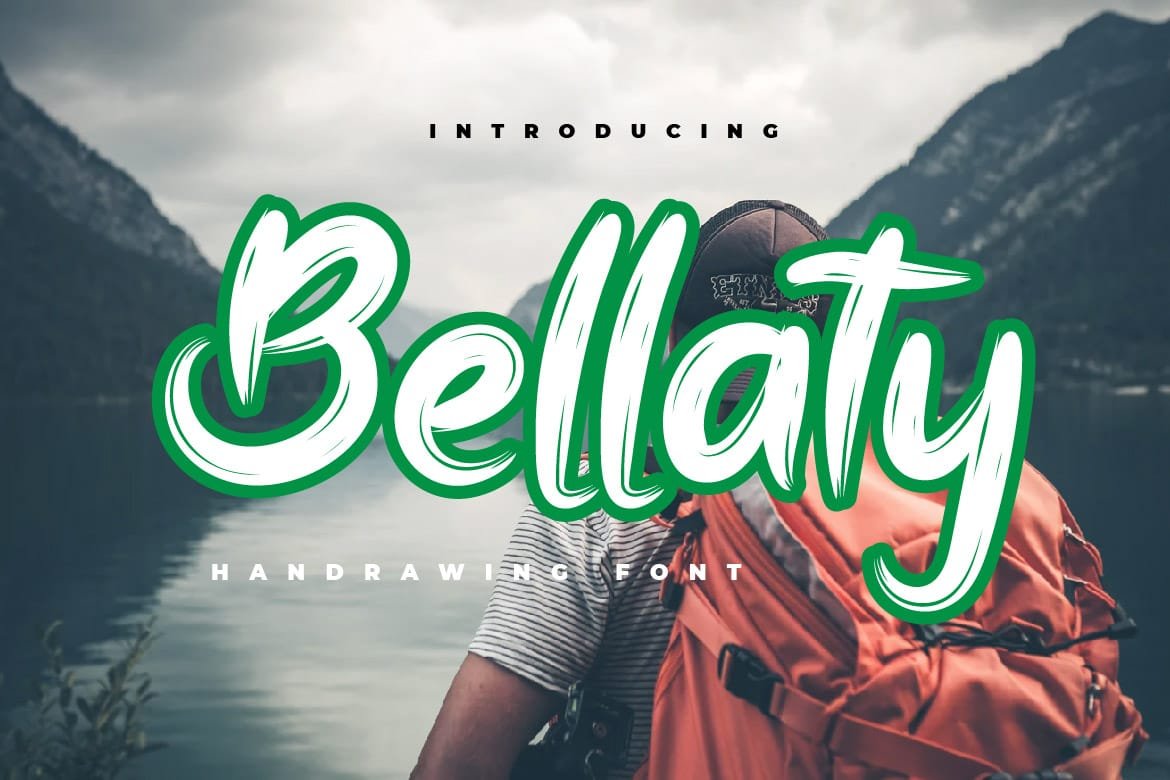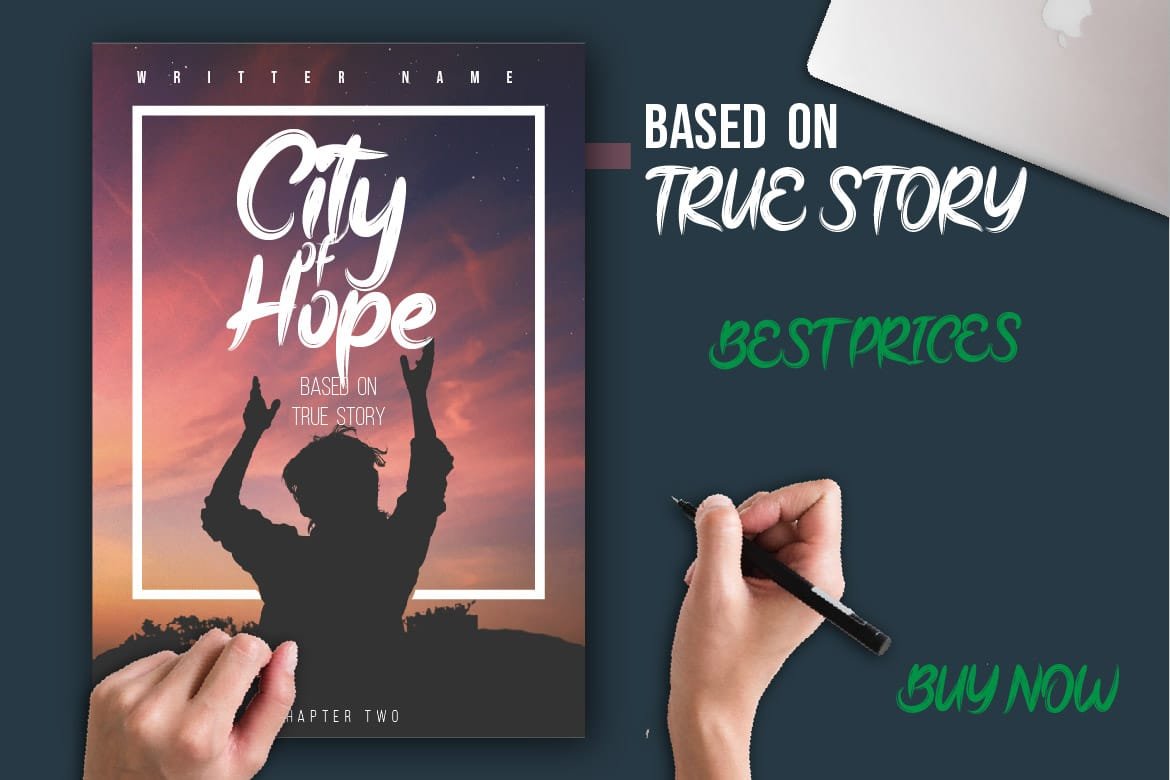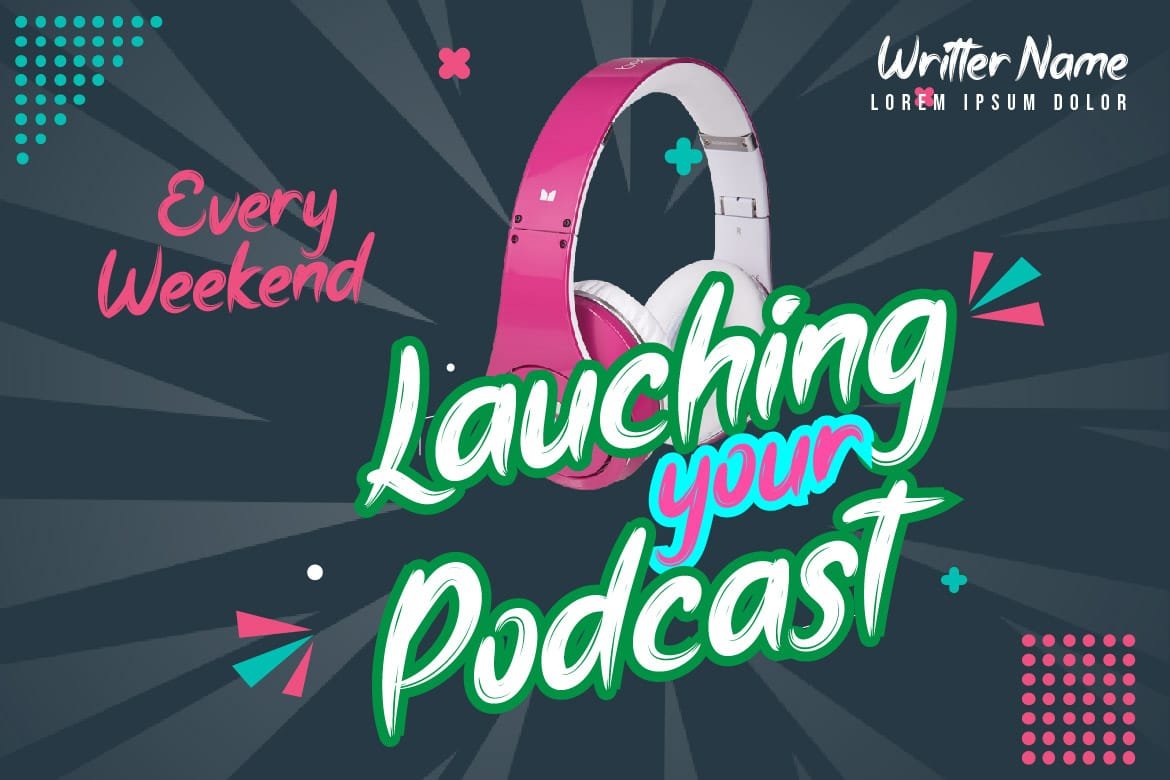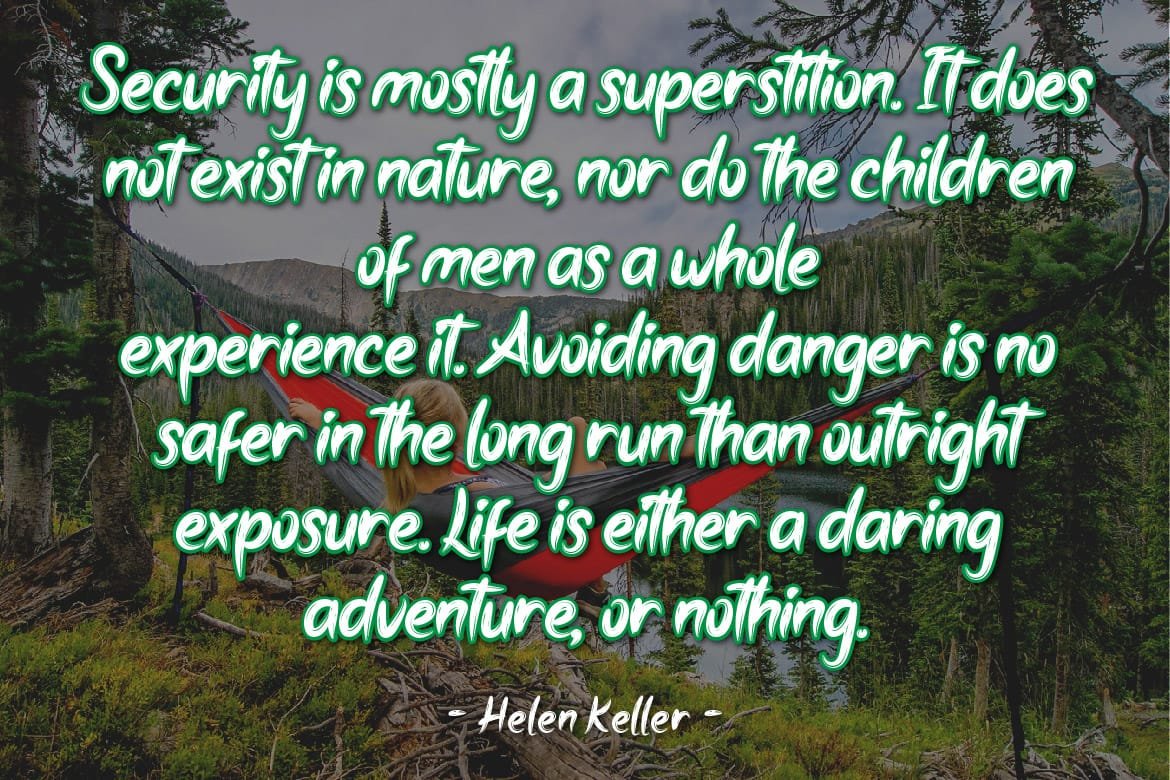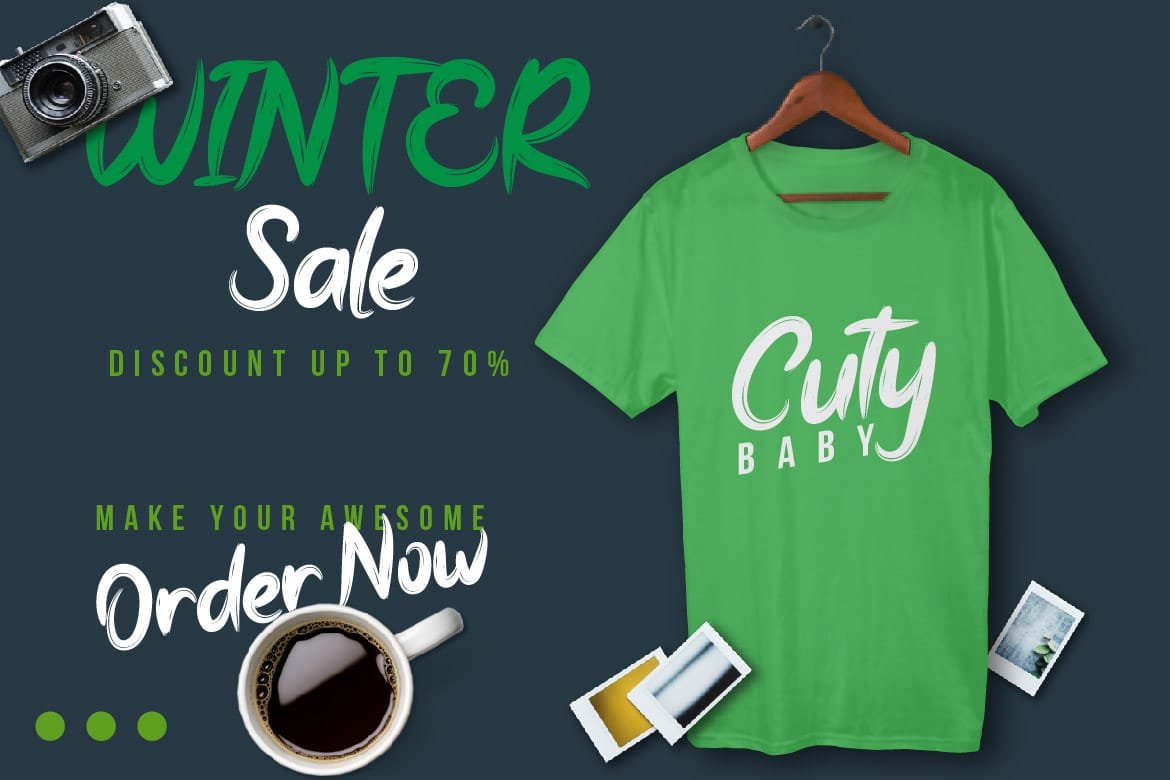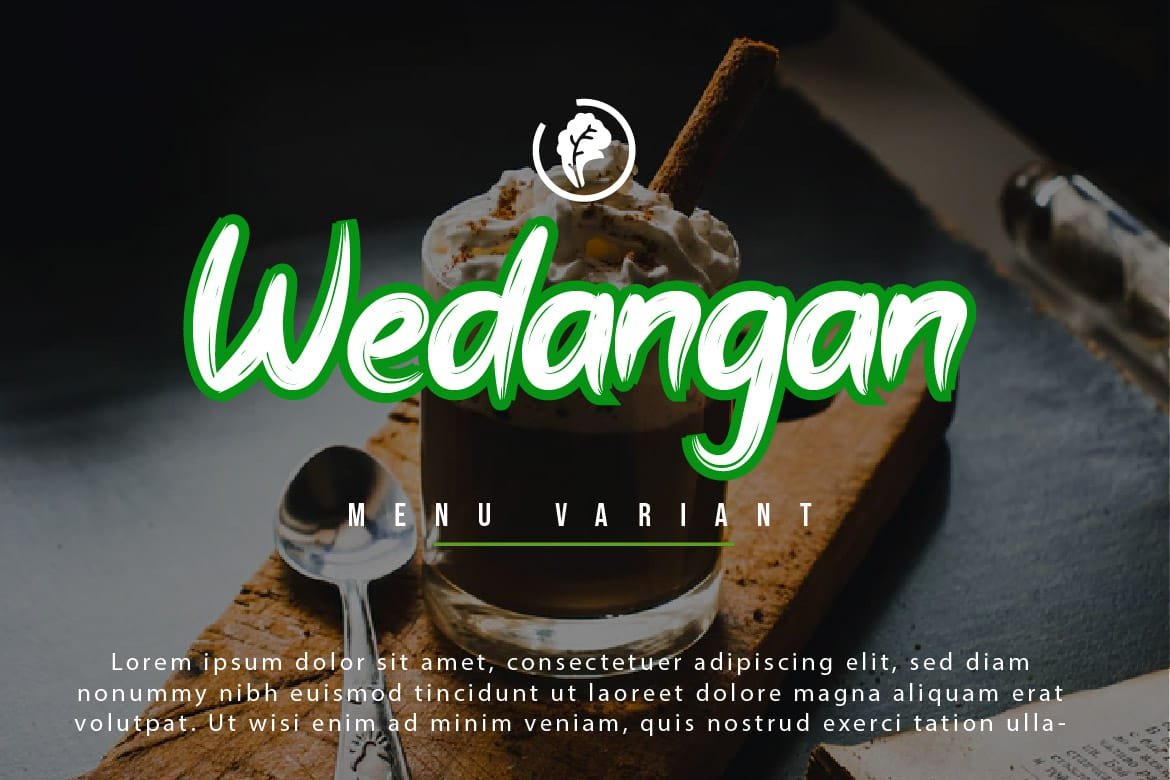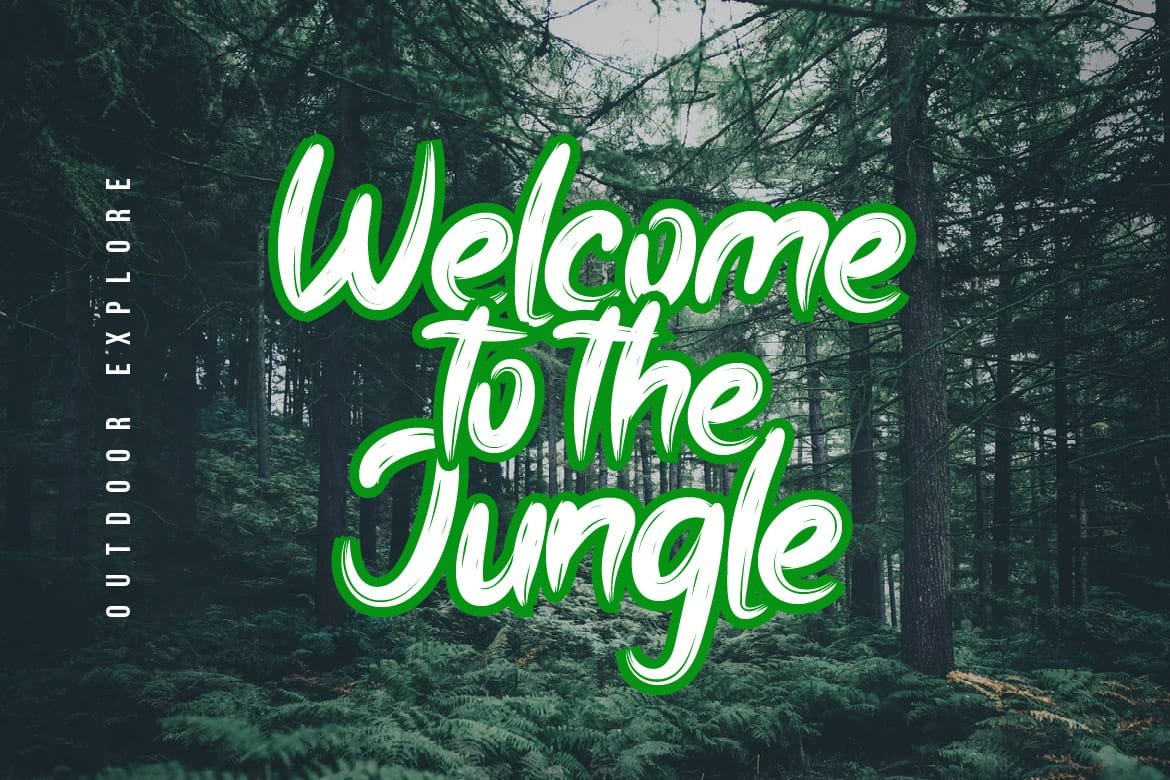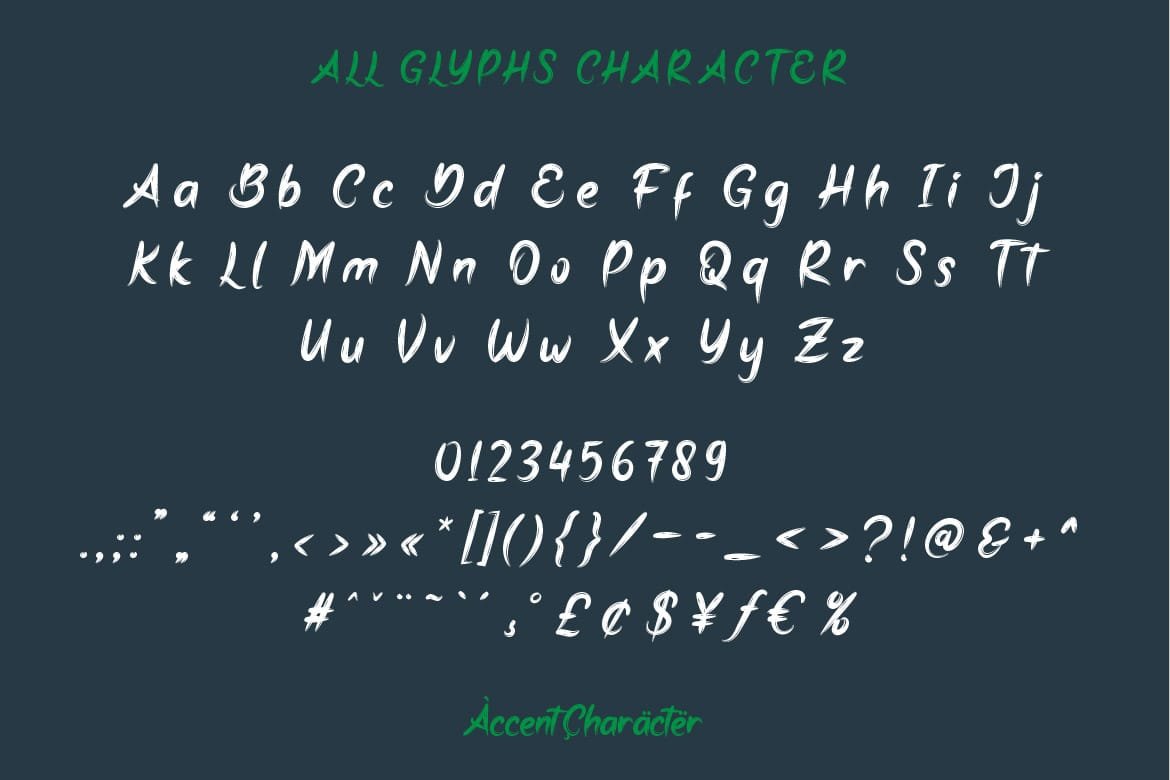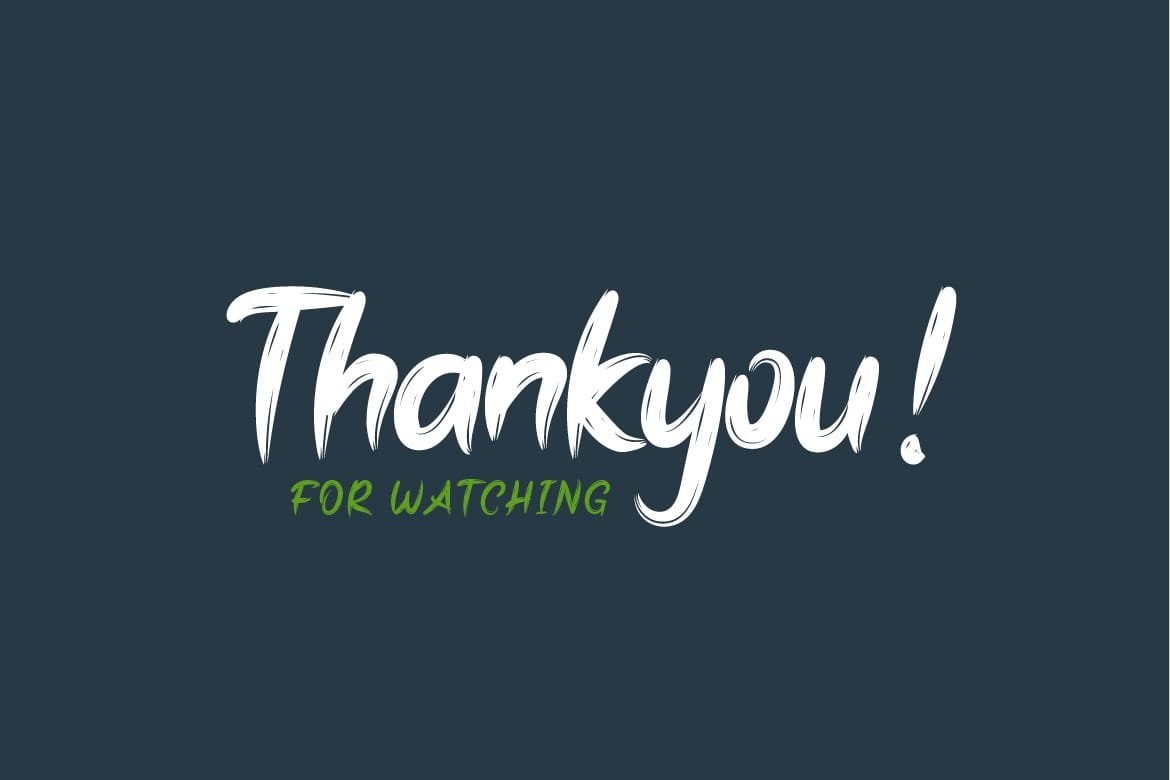
Step into the world of elegance and sophistication with Bellaty – Brush Handwritten Font! With its graceful strokes and timeless charm, Bellaty adds a touch of class to any project. Whether you’re designing luxurious wedding invitations, crafting high-end branding for a boutique hotel, or creating chic product packaging, Bellaty is the epitome of sophistication. Get ready to elevate your designs and leave a lasting impression with Bellaty – the font that exudes timeless beauty and refinement!